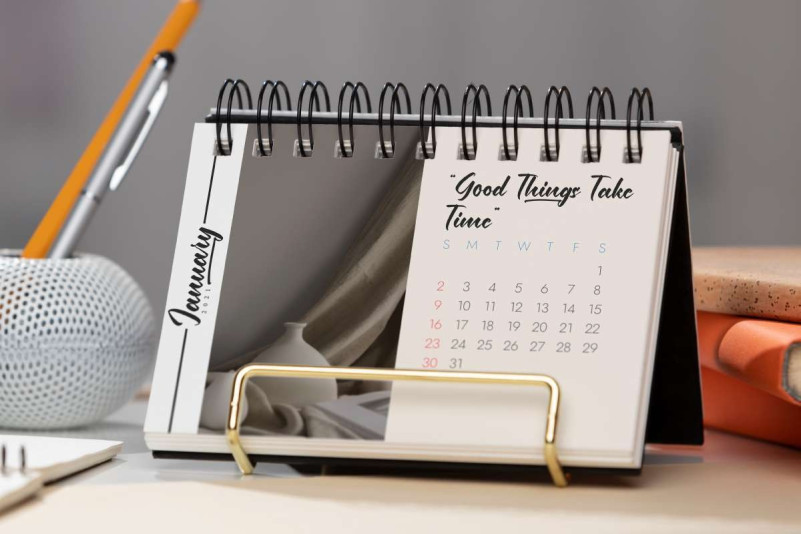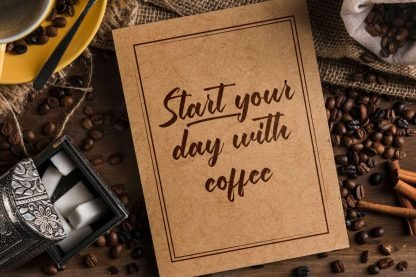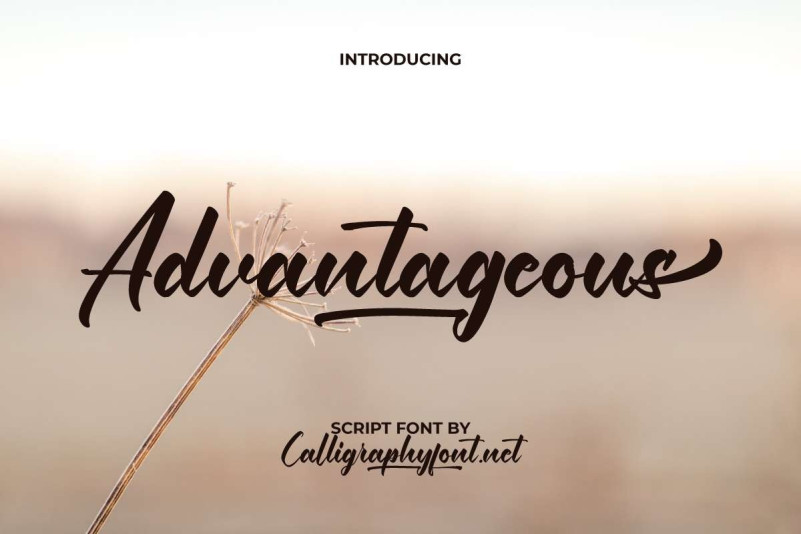
Advantageous Font
Advantageous Script Font is a beautiful script font with an elegant calligraphy brush, special created by CalligraphyFonts.Net. This font can enhance various creative projects, such as business card, calendar, cover, header, magazine catalog, packaging design, stationery, website, and other projects that require a touch of awesome art.
Advantageous Font will be perfect for any industry, such as author, bakery, boutique, café, florist, furniture, publishing, restaurant, salon, etc. This aesthetic font is crafted to perfection in form and legibility, making it a great choice as main text or in combination with other font types.
Advantageous Font comes with a full set of Uppercase and Lowercase Basic Characters, Number, a large range of Punctuation and Symbol, also Alternate, and Ligature. Ready to use both on Windows machine or Mac with simple installations. It’s tested to work well in the Adobe Apps (Illustrator, Adobe InDesign, Adobe Photoshop) CorelDraw, and others. It supports multilingual characters. PUA Encode Characters means you can access all the characters easily – Fully accessible without additional design software.